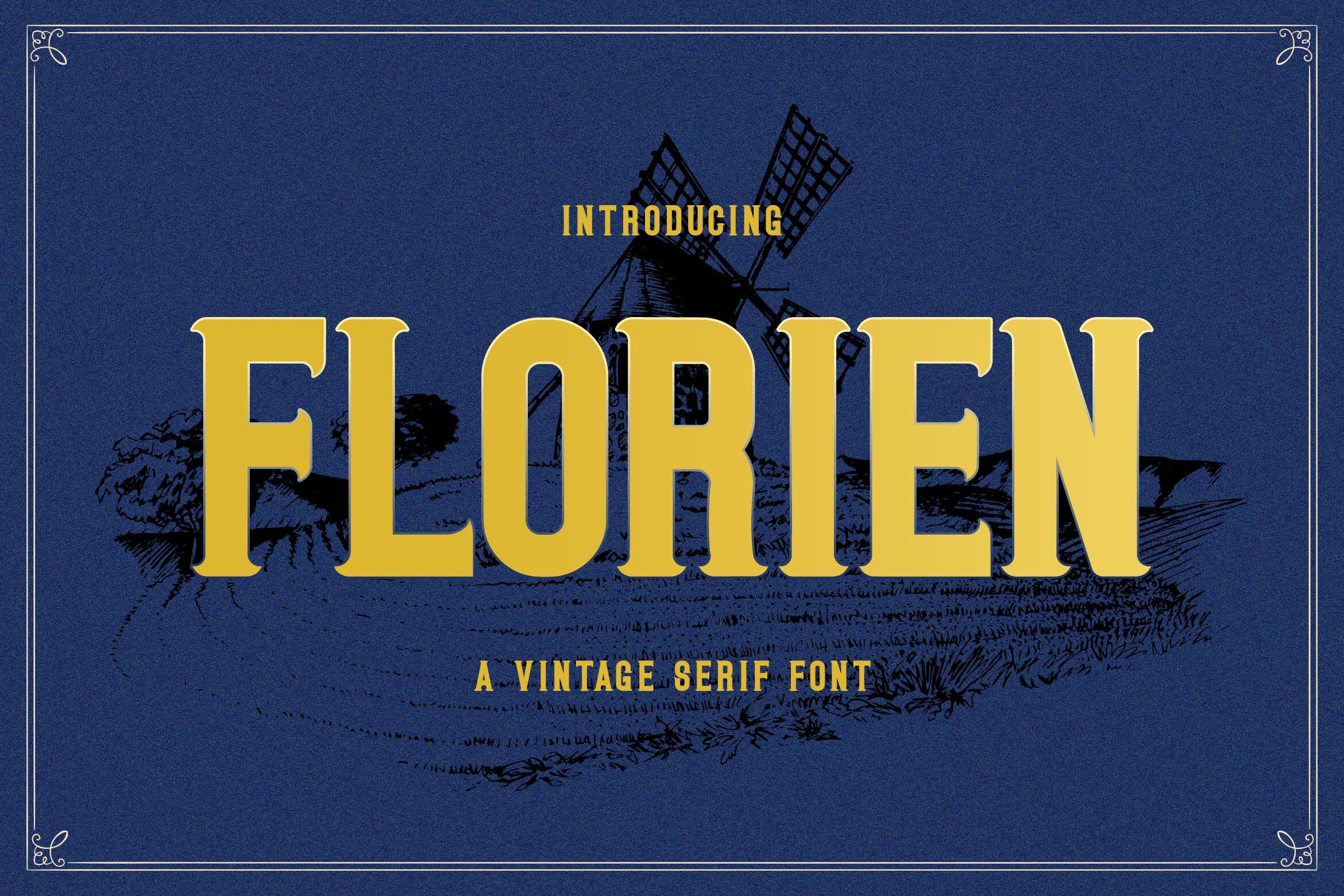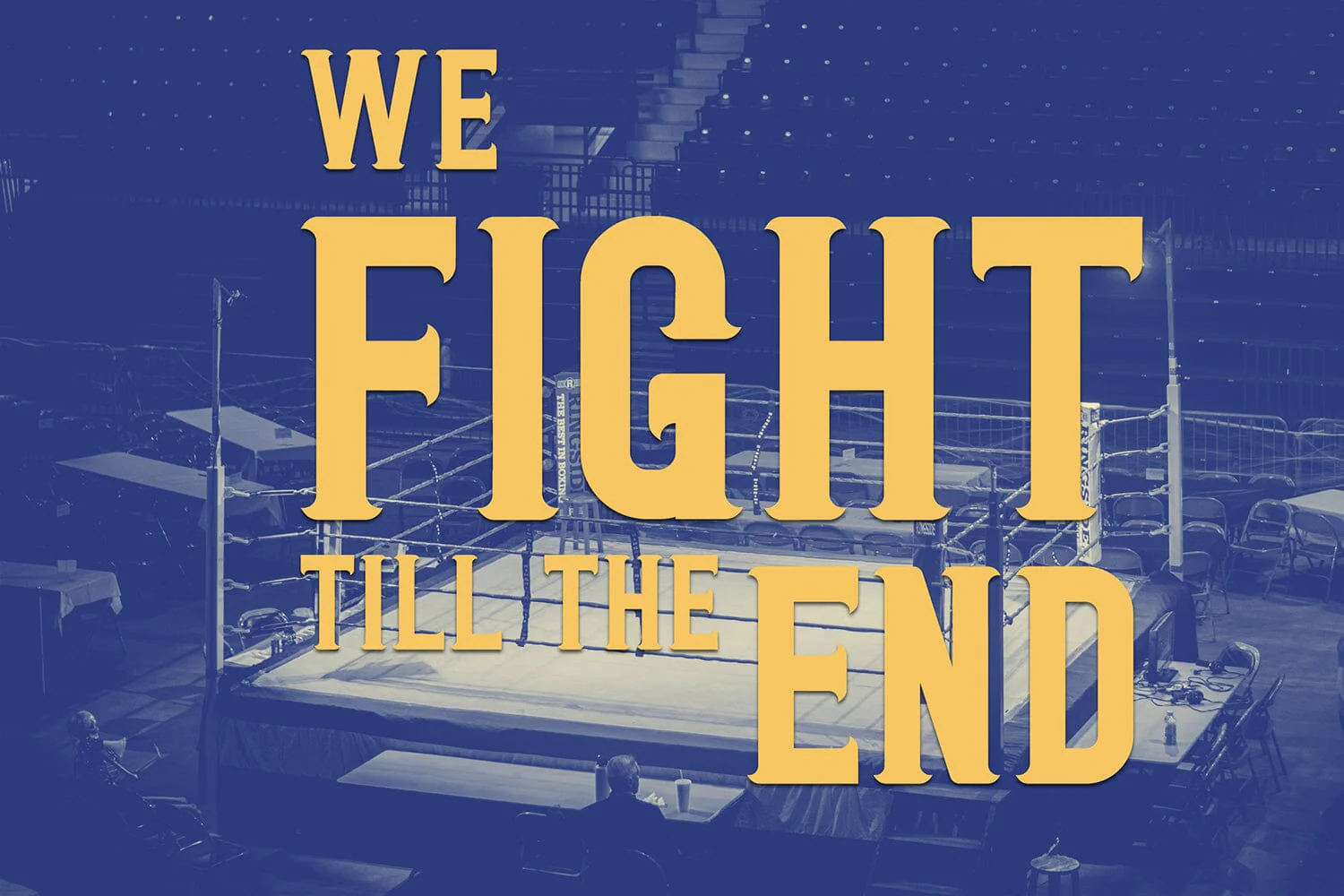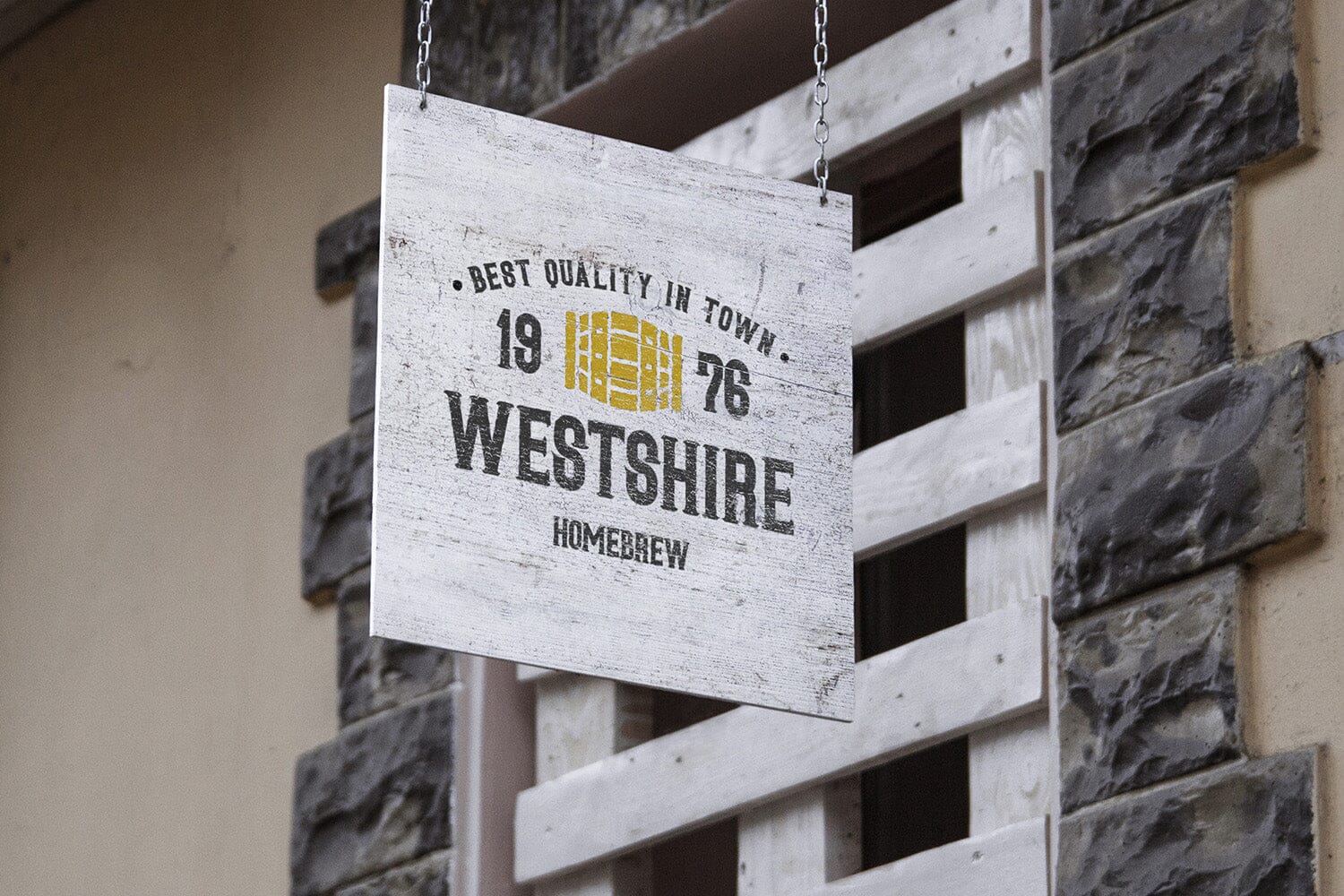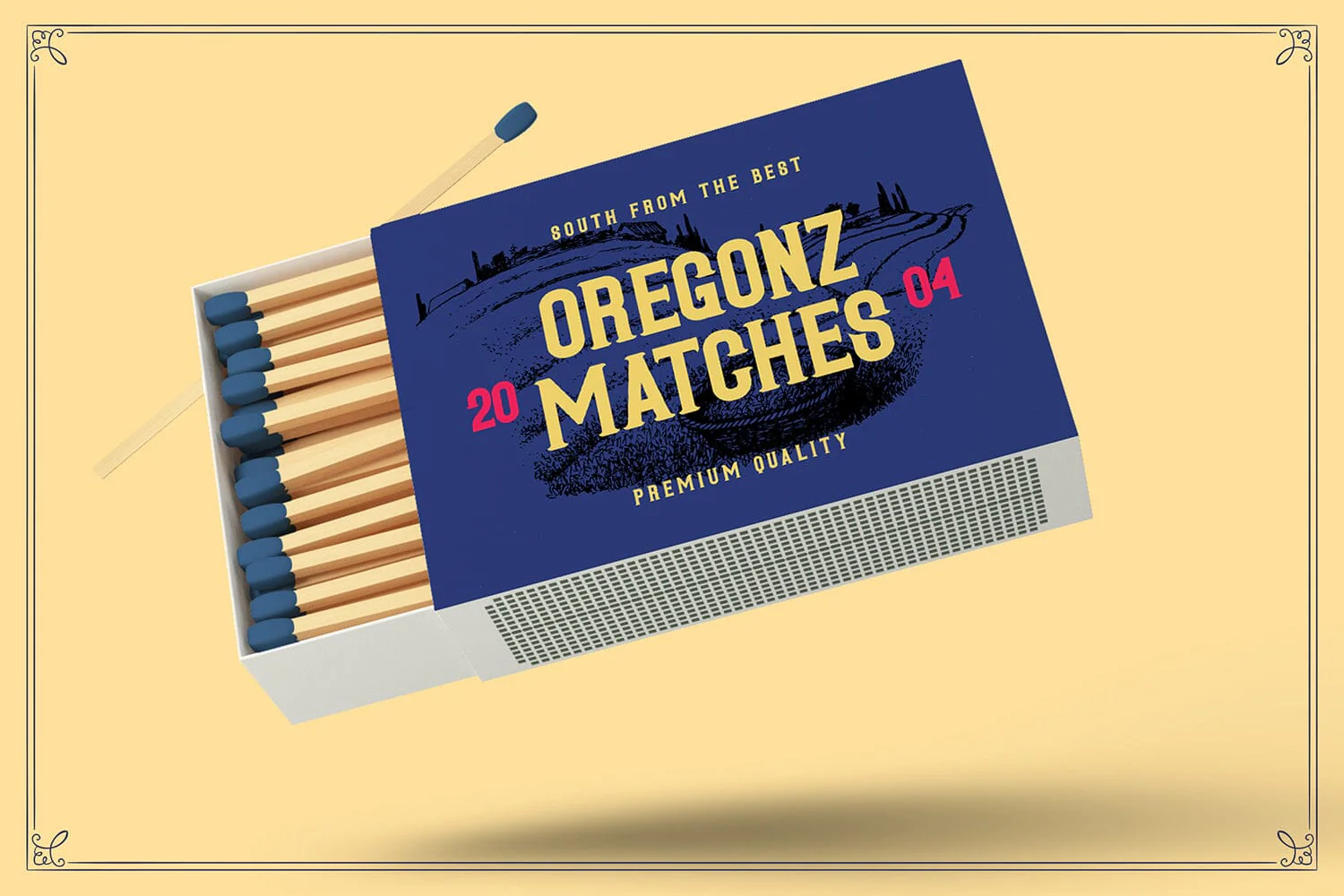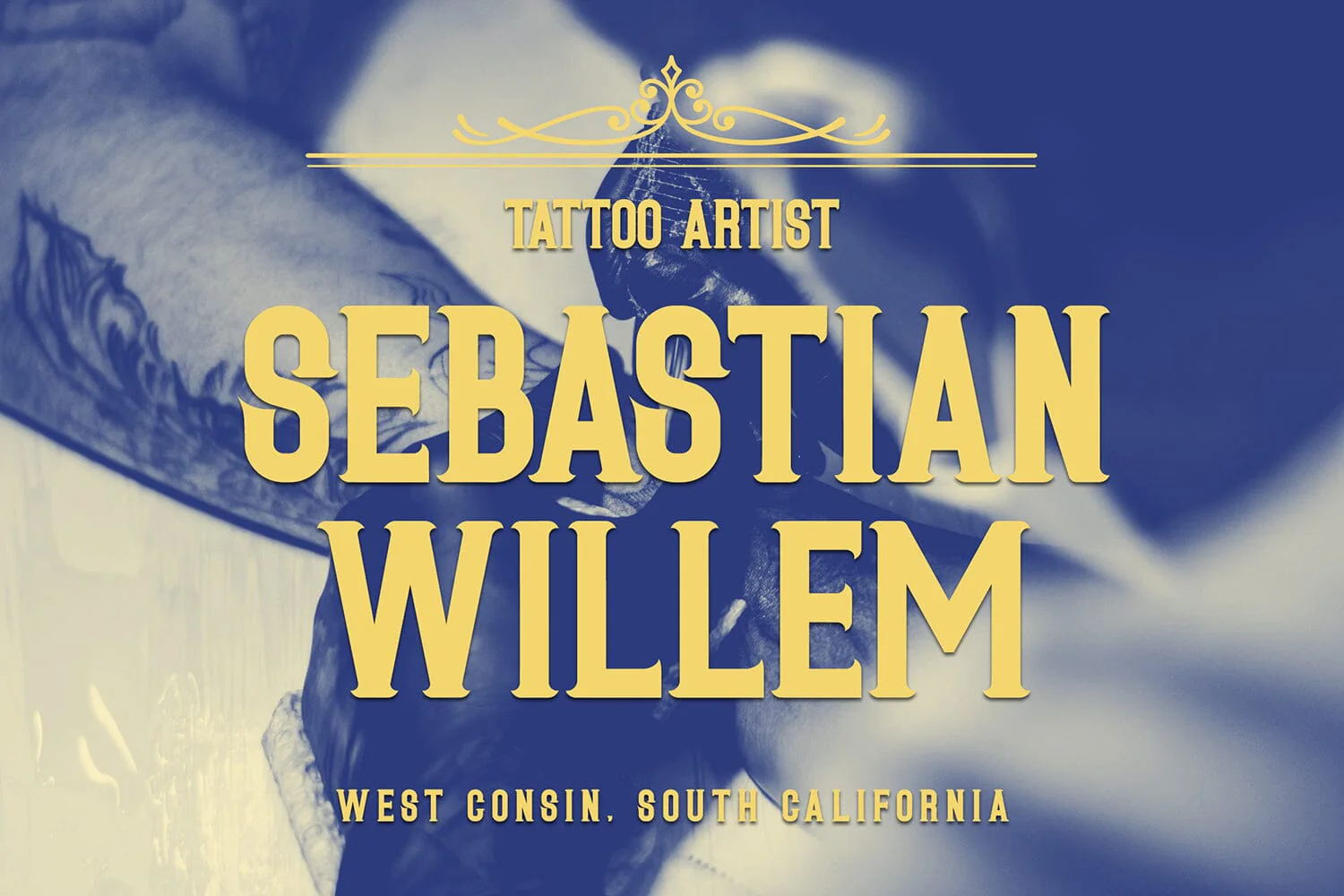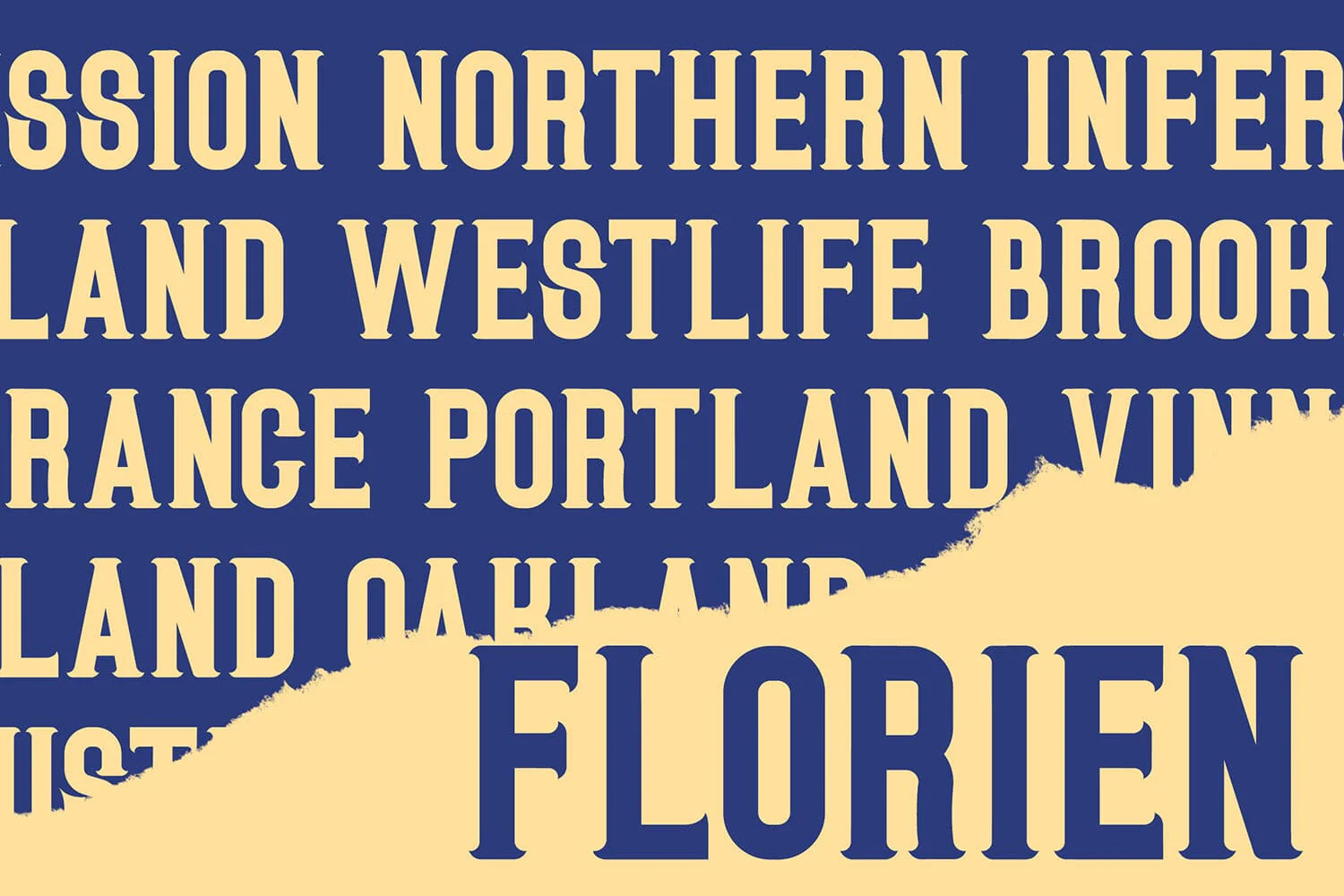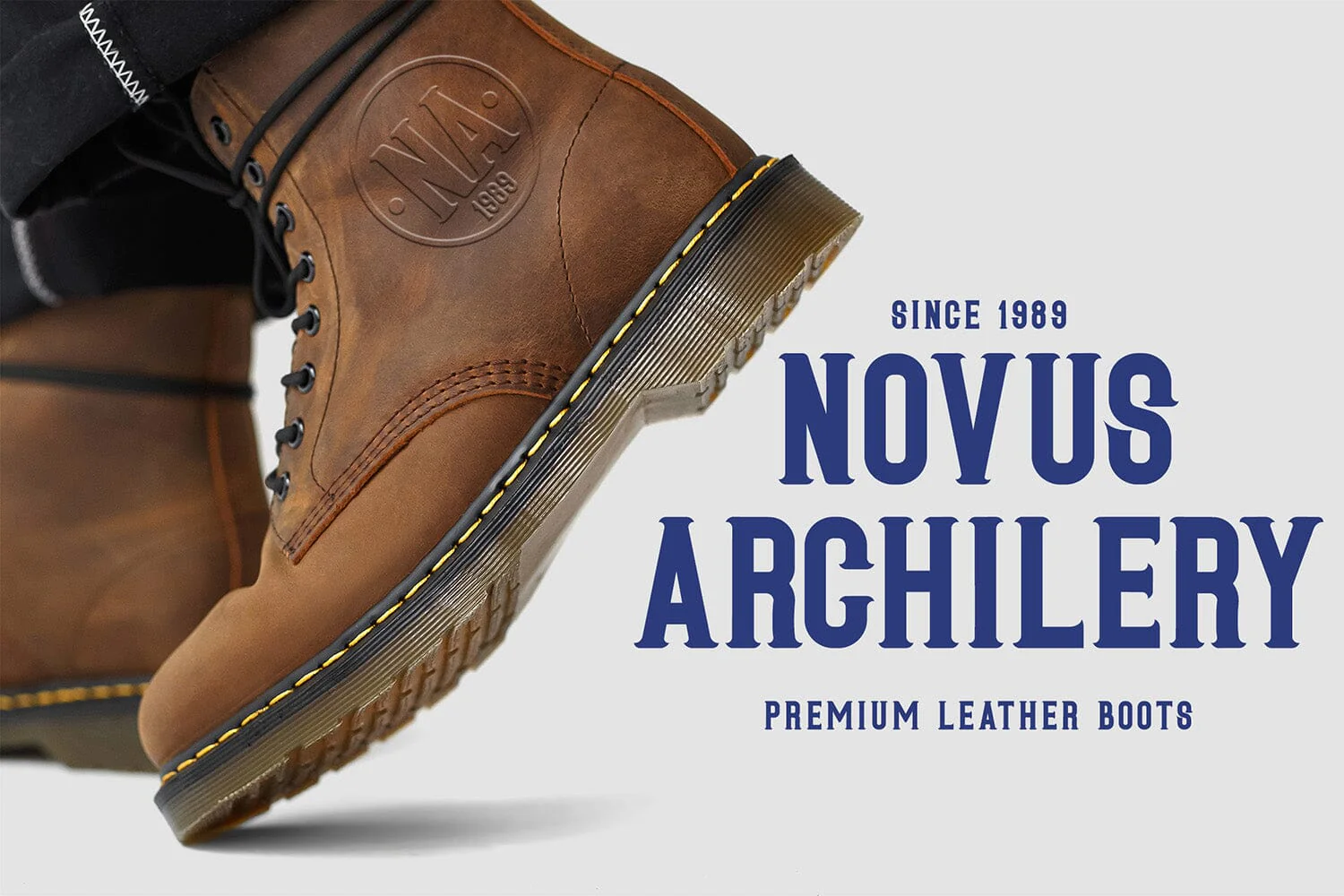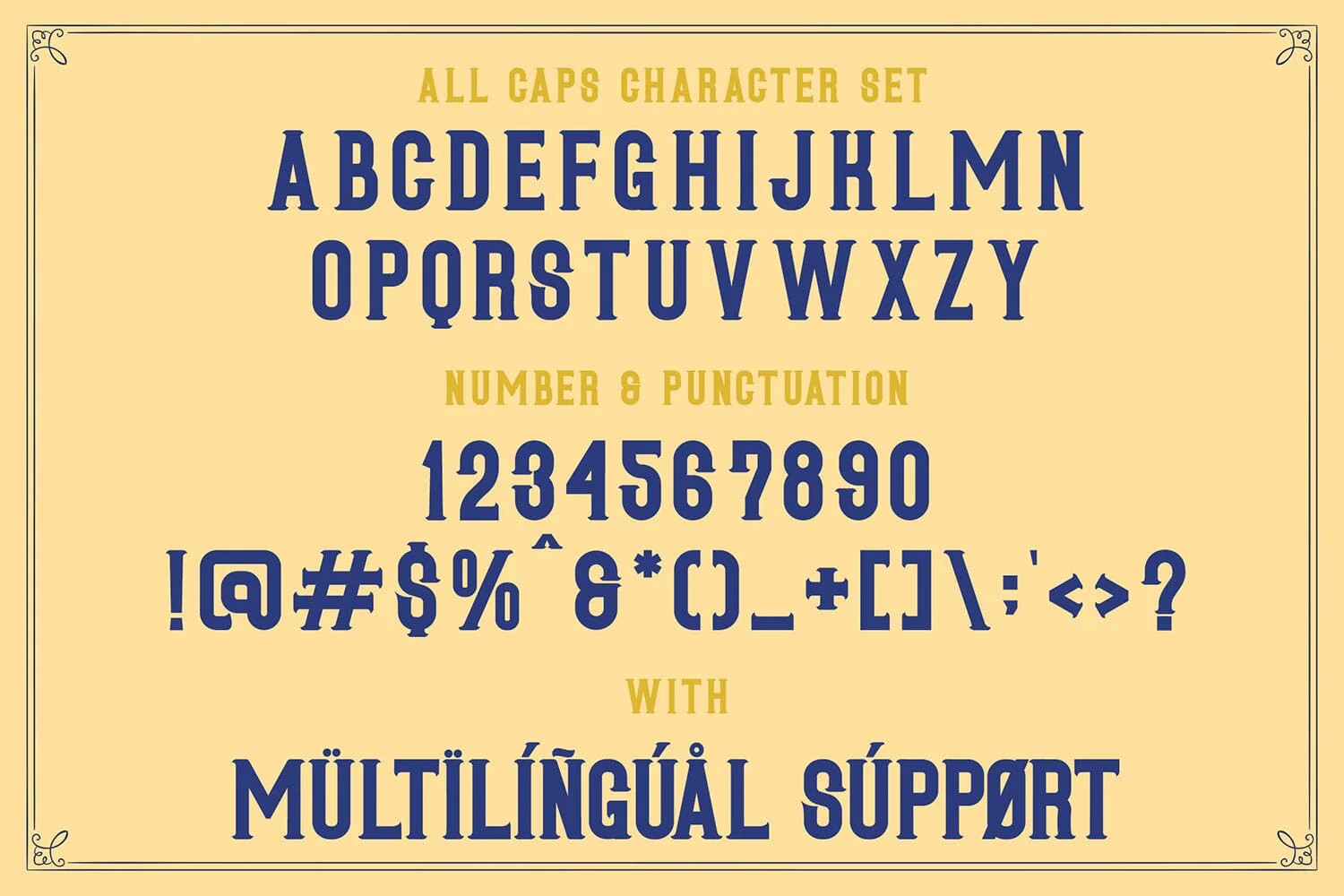
Florien - Victorian Font
Introducing Florien - Victorian Font
Florien is a Victorian style font inspired by classic decorative typography from the 19th century. Its elegant letterforms and ornamental details create a timeless and sophisticated appearance that adds a strong vintage character to any design.
This font is perfect for logos, branding, posters, invitations, book covers, packaging, editorial layouts, and decorative typography. Florien brings a refined and historical atmosphere, making it suitable for designs that aim to capture a classic Victorian aesthetic.
With its graceful structure and distinctive style, Florien helps create visually striking compositions while maintaining a classic and elegant typographic presence.
Introducing Florien - Victorian Font
Florien is a Victorian style font inspired by classic decorative typography from the 19th century. Its elegant letterforms and ornamental details create a timeless and sophisticated appearance that adds a strong vintage character to any design.
This font is perfect for logos, branding, posters, invitations, book covers, packaging, editorial layouts, and decorative typography. Florien brings a refined and historical atmosphere, making it suitable for designs that aim to capture a classic Victorian aesthetic.
With its graceful structure and distinctive style, Florien helps create visually striking compositions while maintaining a classic and elegant typographic presence.